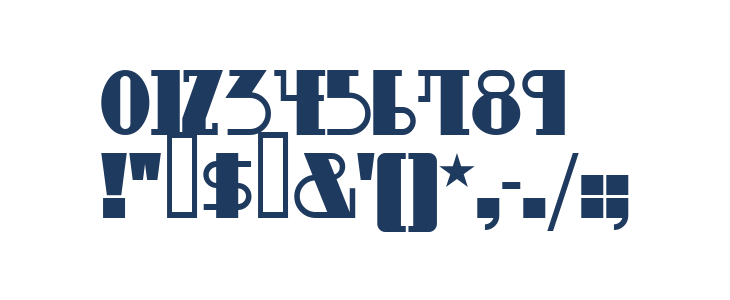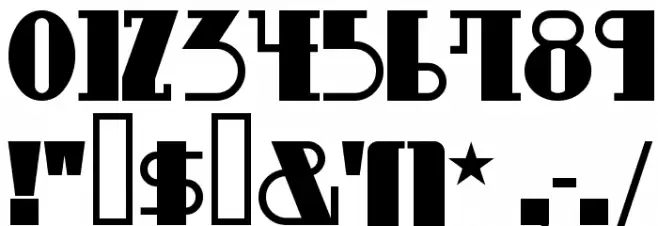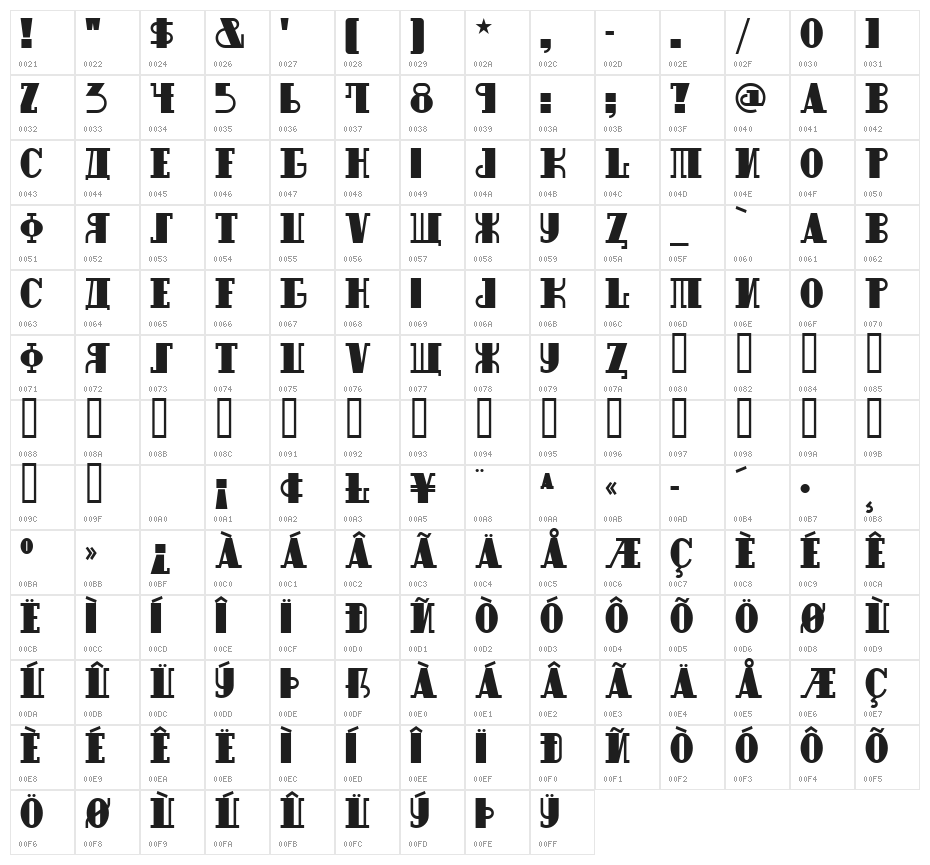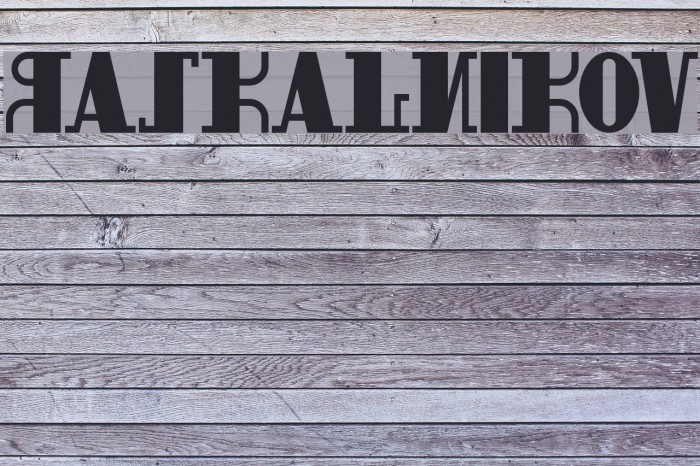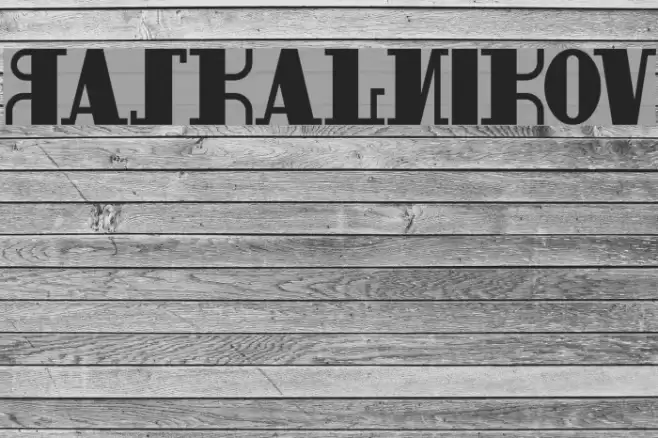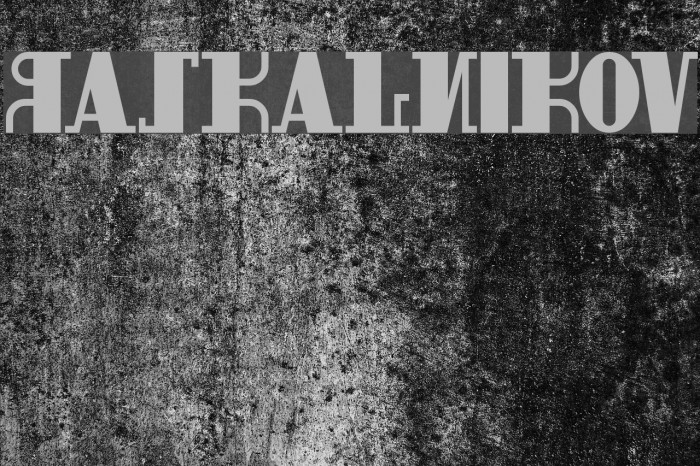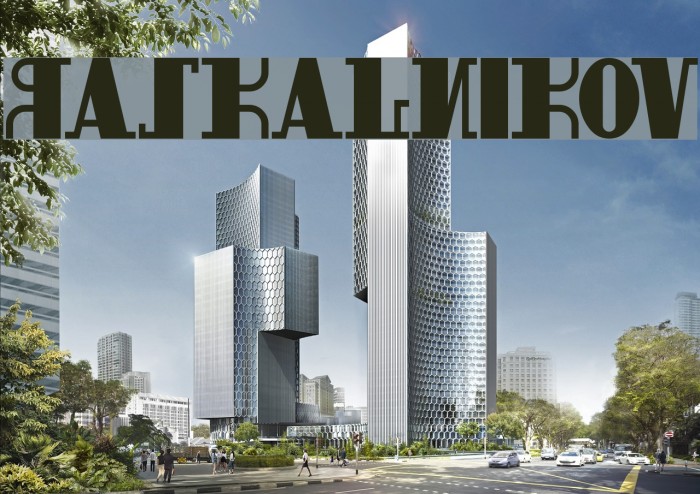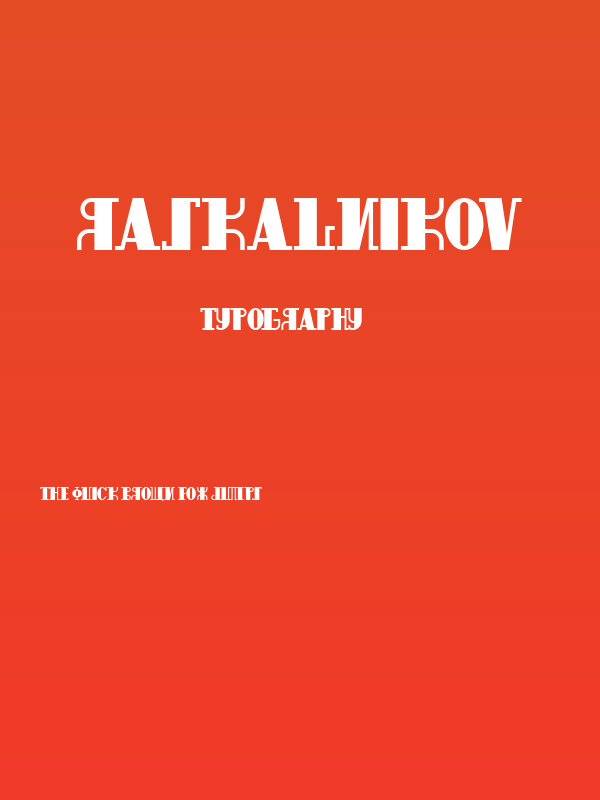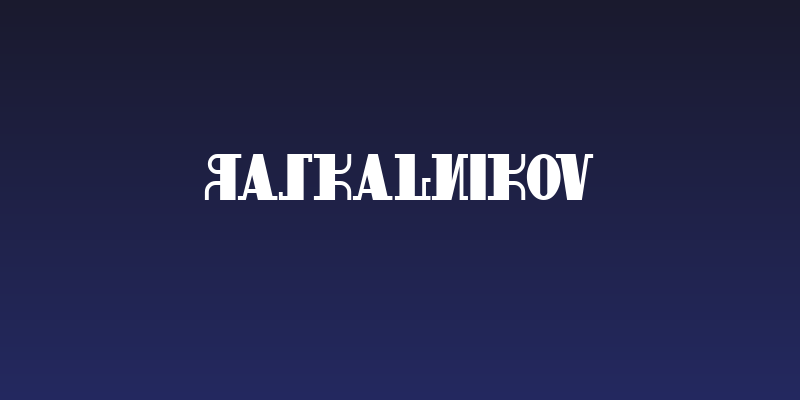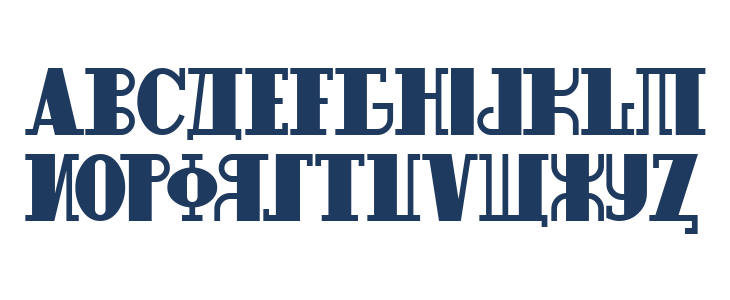
Raskalnikov Font
Raskalnikov Description
This font features a bold and striking design with a strong presence. The characters are crafted with thick, block-like structures, giving them a robust and impactful appearance. The uppercase letters are particularly prominent, with a distinct geometric influence that adds a modern touch. The numbers and special characters maintain this bold style, ensuring consistency across all elements. The font's unique style makes it suitable for projects that require a strong visual impact.
| Proposed Projects | Ideal for posters, headlines, branding, and any design that requires a bold statement. |